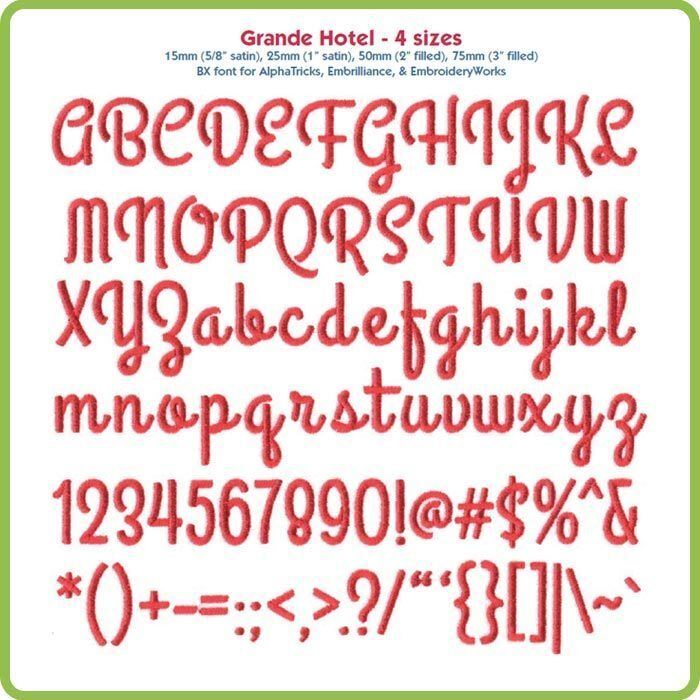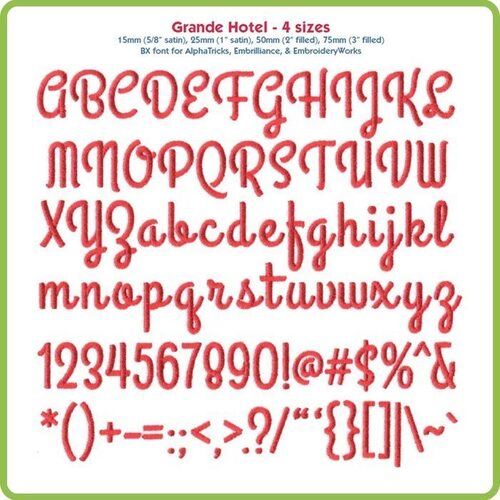
Grande Hotel BX fonts in 4 sizes: 15mm, 25mm, 50mm and 75mm
Collection Notes: Grande Hotel is a casual upright script machine embroidery font that includes A-Z, a-z, 0-9 and the following punctuation: ~`!@#$%^&*()-+={}[]|:;"'<>,.?/ (93 total characters). This bundle includes the following sizes: 15mm (5/8") satin, 25mm (1") satin, 50mm (2") satin, 75mm (3") fill.